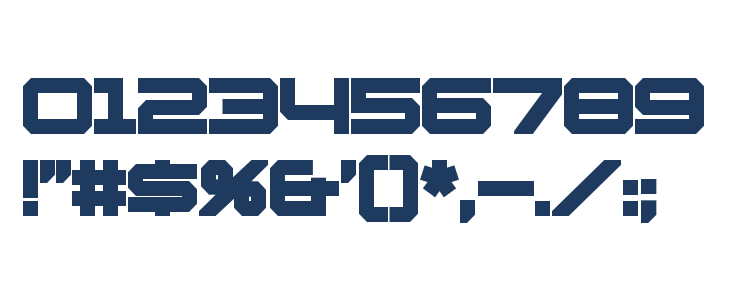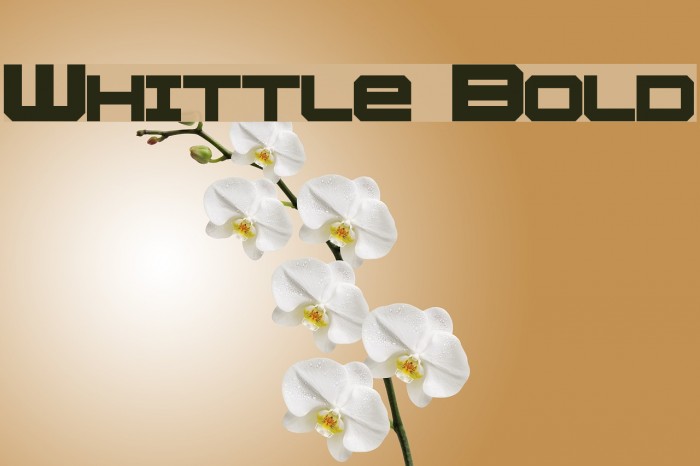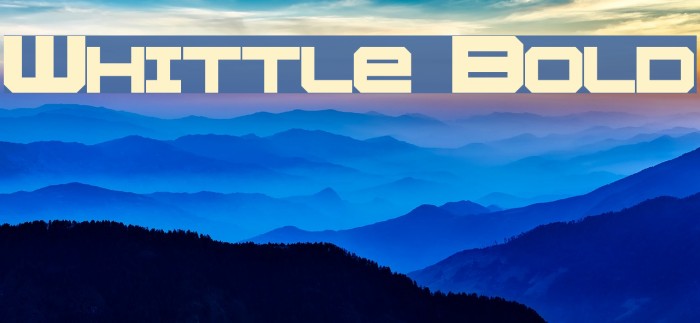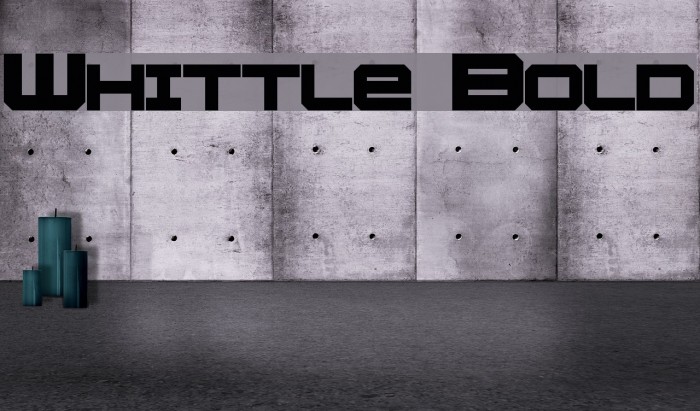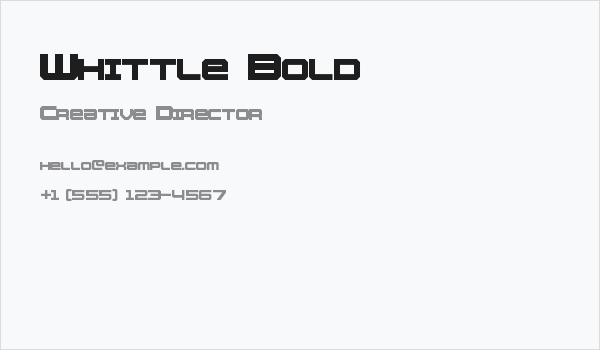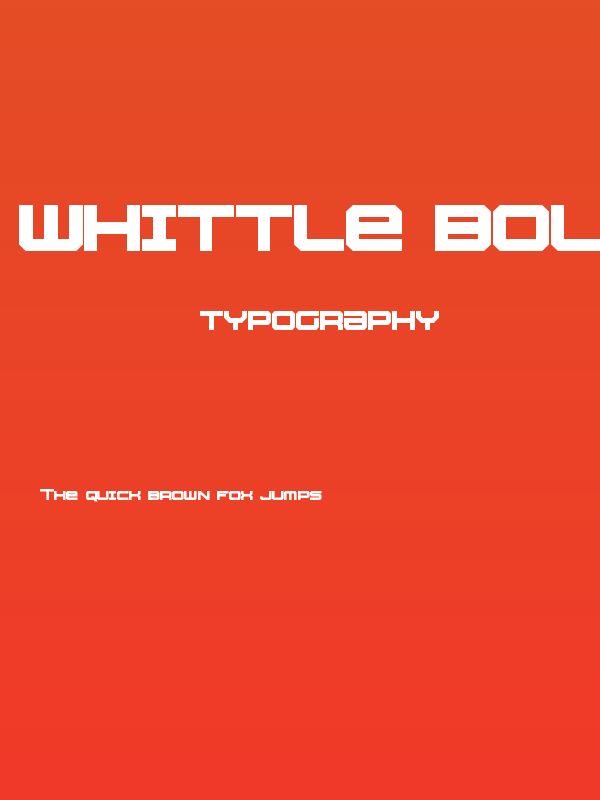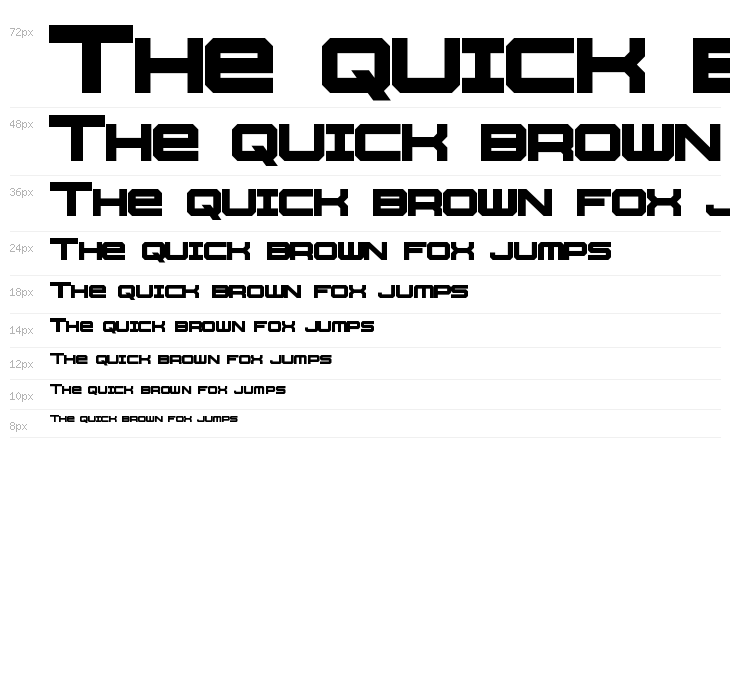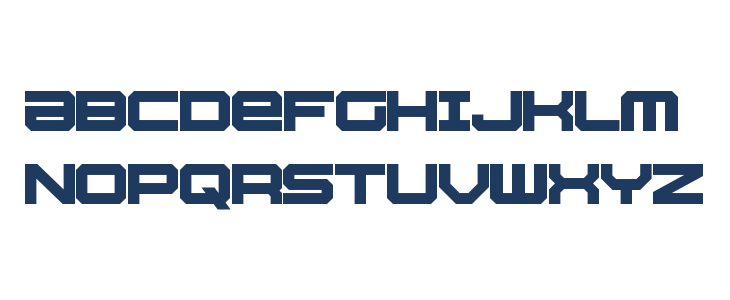
Whittle Bold Font
Whittle Bold Description
This font features a bold, geometric design with a strong, angular appearance. The characters are constructed with thick, block-like strokes, giving them a sturdy and impactful look. The uppercase and lowercase letters maintain a consistent style, emphasizing uniformity and cohesion. The numbers and special characters follow the same design principles, ensuring a harmonious overall appearance. The font's boldness and geometric nature make it ideal for projects that require a modern and assertive aesthetic.